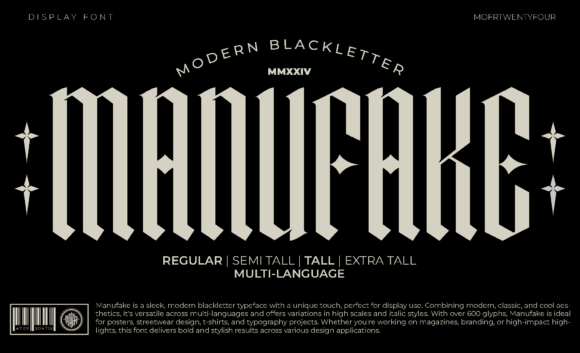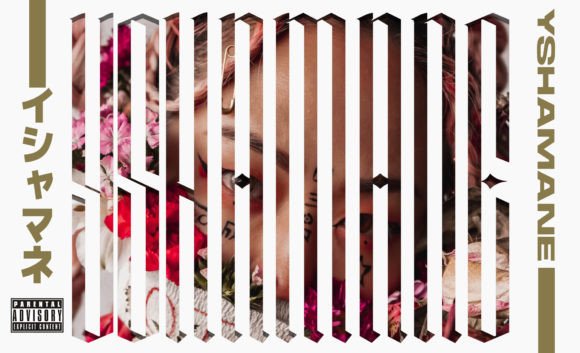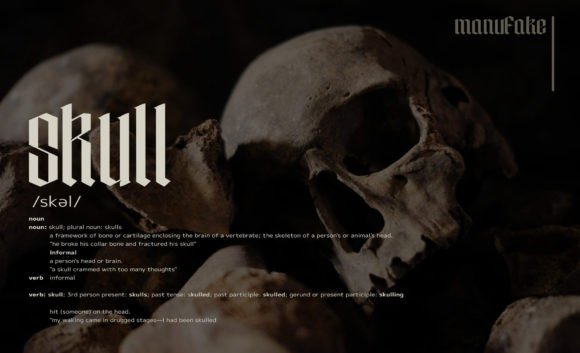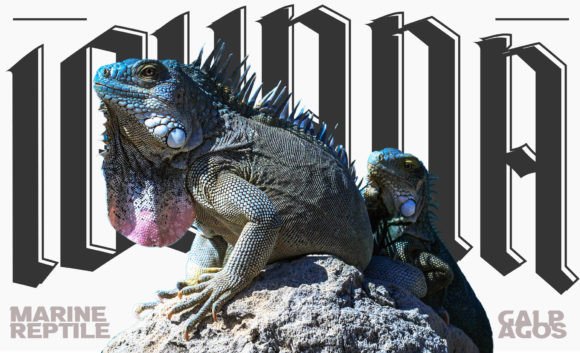
Manufake Font
About the Manufake Font
We are excited to introduce Manufake Font, a must-have typeface for any serious designer. Introducing Manufake, a blackletter typeface tailored for the innovative and avant-garde, featuring a distinctive blend of contemporary and classic aesthetics. The font encapsulates an air of sophistication while maintaining a streak of cool edge, making it a versatile tool for multiple languages. Flourishing in large scales and italic styles, it adds nuance to any visual context.
Manufake boasts over 600 unique glyphs, bringing your t-shirt or streetwear designs, posters, and typography projects to life. With its audacious, style-forward appeal, Manufake gracefully meets the needs of magazine layouts, branding endeavors, or any high-impact visual designs, making a bold statement in every design scenario.
Manufake Font Usage Examples
Manufake Font Example